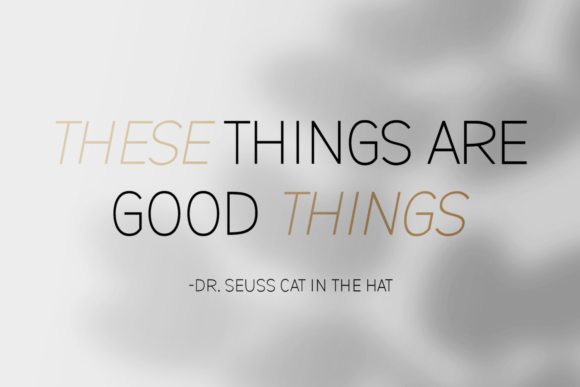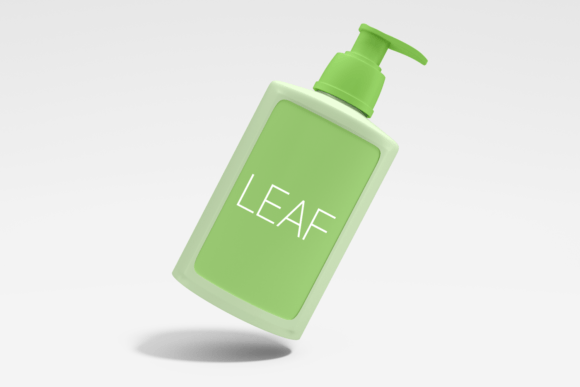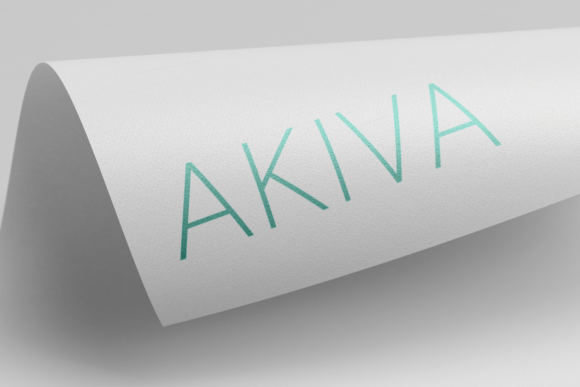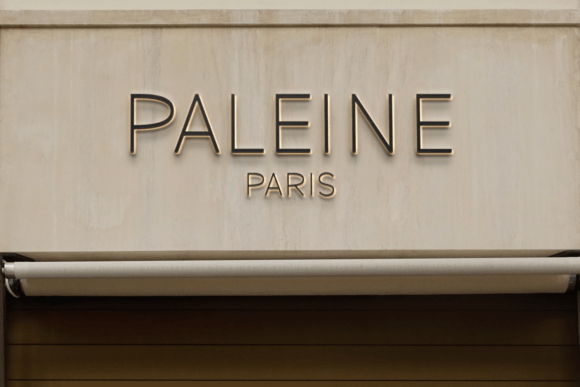
Introduction to Granile Font
Have you ever stared at a blank canvas, feeling the pressure to create something truly unique and eye-catching? That’s when the magic happens – when the perfect design resource comes to life. For designers seeking a modern touch, the Granile Font is a game-changer. Its sleek lines and clean design make it an ideal choice for any creative project.
Whether you’re working on a website, poster, or logo, the Granile Font adds a level of sophistication and style that’s hard to resist. With its transparent background and high-quality design, it’s perfect for designers who want to elevate their work to the next level. And the best part? The Granile Font is available for free download, making it an accessible resource for designers of all levels.
So, what sets the Granile Font apart from the rest? Its versatility and ease of use make it a valuable asset for any design project. From a simple logo to a complex website, the Granile Font is the perfect choice for designers who want to create something truly remarkable.
Key Features of Granile Font
- High-quality, professional design suitable for various creative projects, including logos, graphics, and typography.
- Unique and elegant design style, making it an excellent choice for designers looking to add a touch of sophistication to their projects.
Honest Review: Granile Font
As a designer, I’m always on the lookout for high-quality design resources that can elevate my creative projects. The Granile Font has caught my attention, and I’m excited to share my honest review.
What works well: ✨ The Granile Font has a sleek and modern design that’s perfect for a variety of creative projects. The font’s clean lines and elegant feel make it an excellent choice for headings, titles, and body text. The font also comes with a transparent background, which allows for seamless integration with any design element.
What’s not so great: ⚠️ While the Granile Font is free to download, the font family is limited to a single style. This may not be ideal for designers who need a comprehensive font family for their projects.
Overall, the Granile Font is a solid addition to any designer’s toolkit. Its modern design and clean lines make it an excellent choice for creative projects. While the font family is limited, the Granile Font is still a valuable resource for designers who need a high-quality font for their designs.
The Granile Font is a high-quality, versatile font perfect for creative projects. With its transparent background, it’s ideal for adding text overlays to images or videos.
To get the most out of the Granile Font, experiment with different text settings, such as size, color, and transparency. You can also use the font in combination with other design elements to create visually appealing compositions.
The Granile Font is ideal for a variety of creative projects, including social media graphics, blog posts, and presentations. Its transparent background makes it perfect for adding text overlays to images or videos.